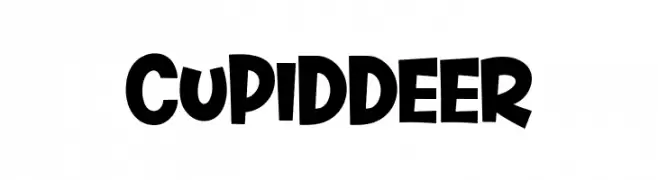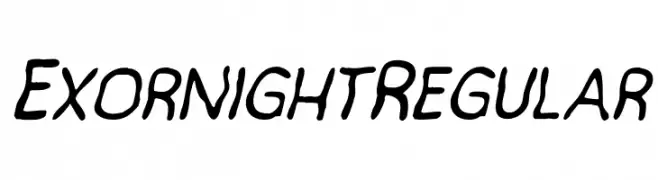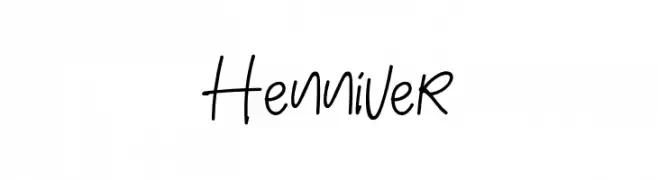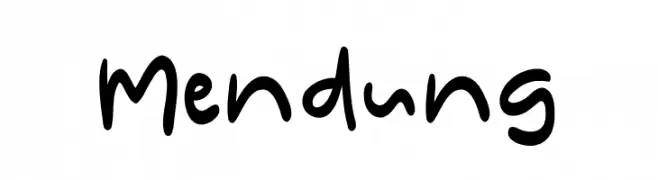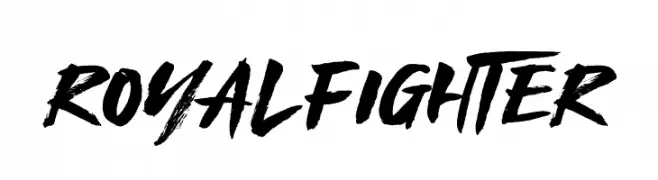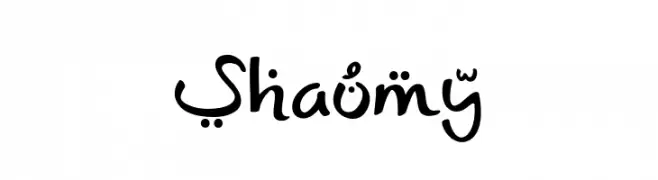
A bold, brushstroke font with a dynamic and textured appearance.
A bold, playful font with rounded, whimsical characters.
A playful, bold, hand-drawn font with rounded, casual characters.
A dynamic, handwritten-style font with a playful and energetic feel.
A dynamic and elegant script font with fluid strokes and a handwritten aesthetic.
A lively handwritten font with fluid, expressive strokes.
A bold, expressive brush script font with dynamic strokes.
A playful, handwritten font with rounded, smooth letterforms.
A playful, handwritten font with a casual and friendly appearance.
A playful, whimsical handwritten font with unique accents and embellishments.